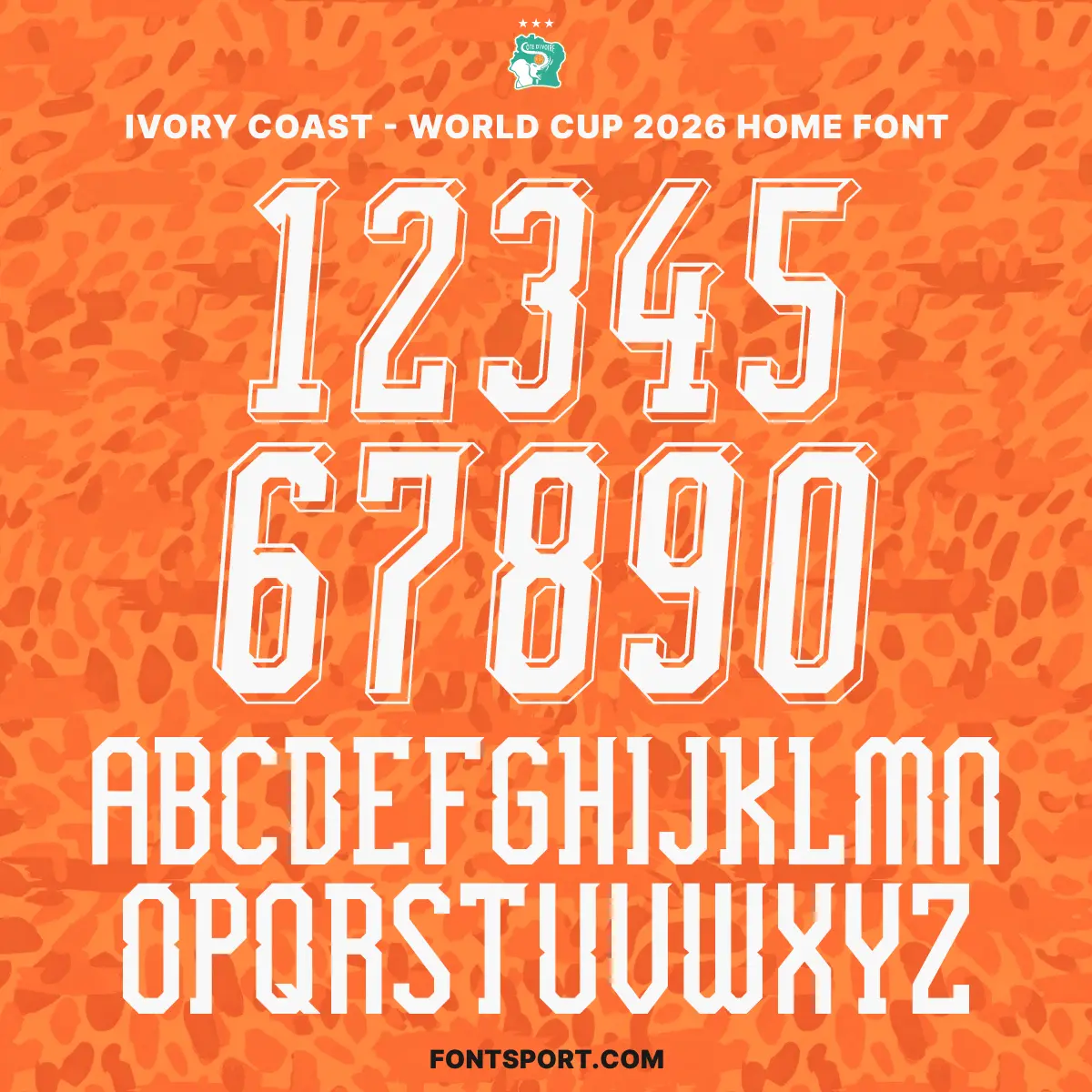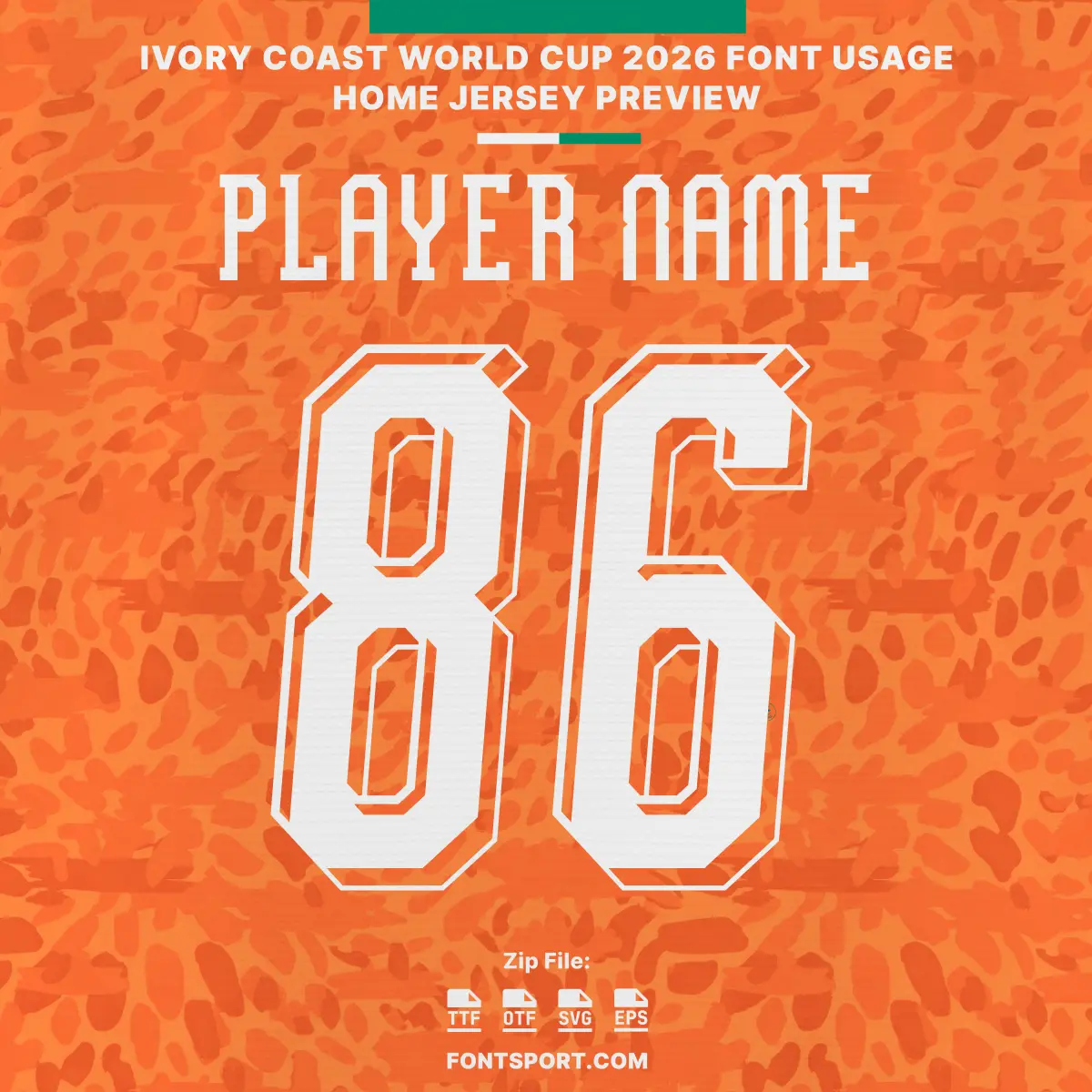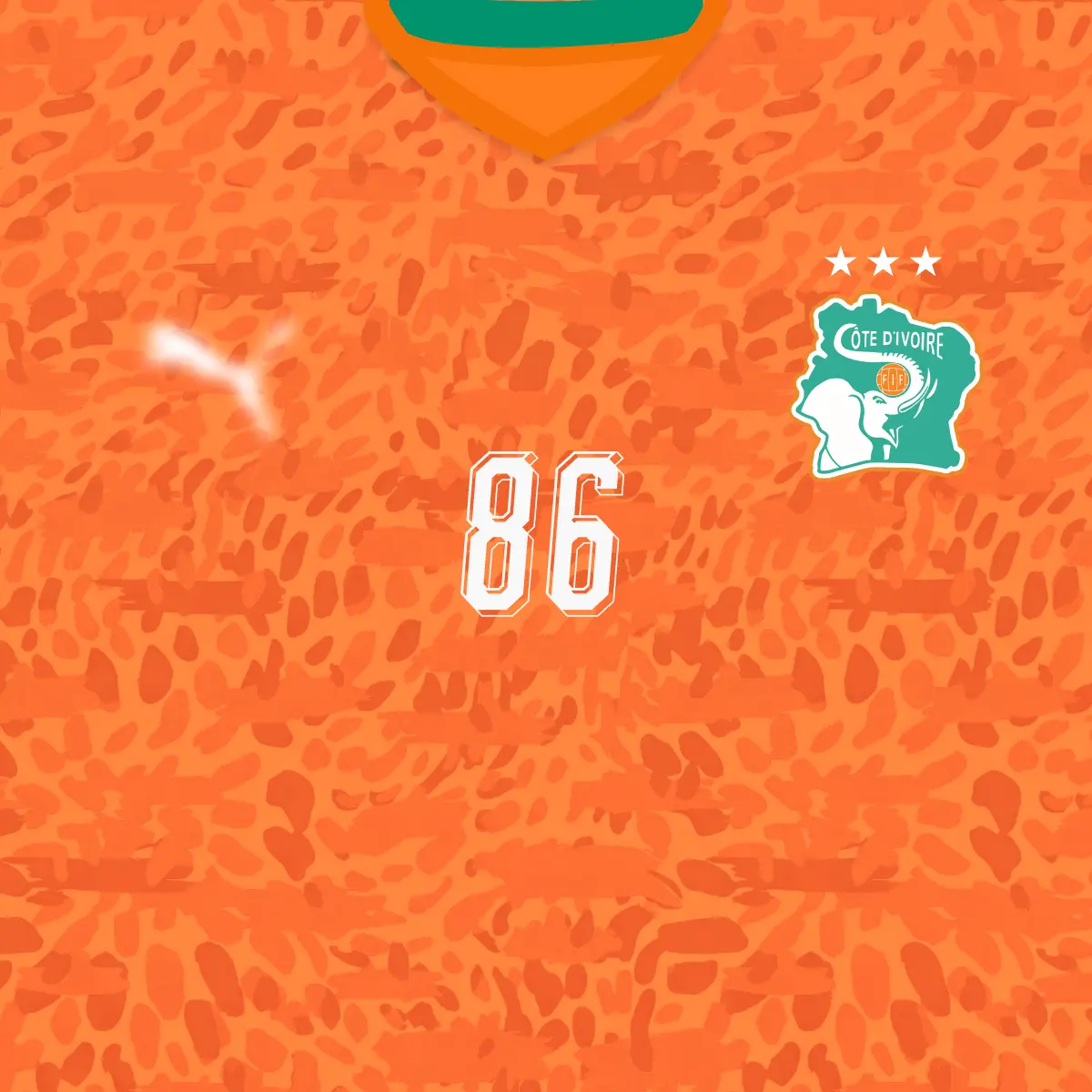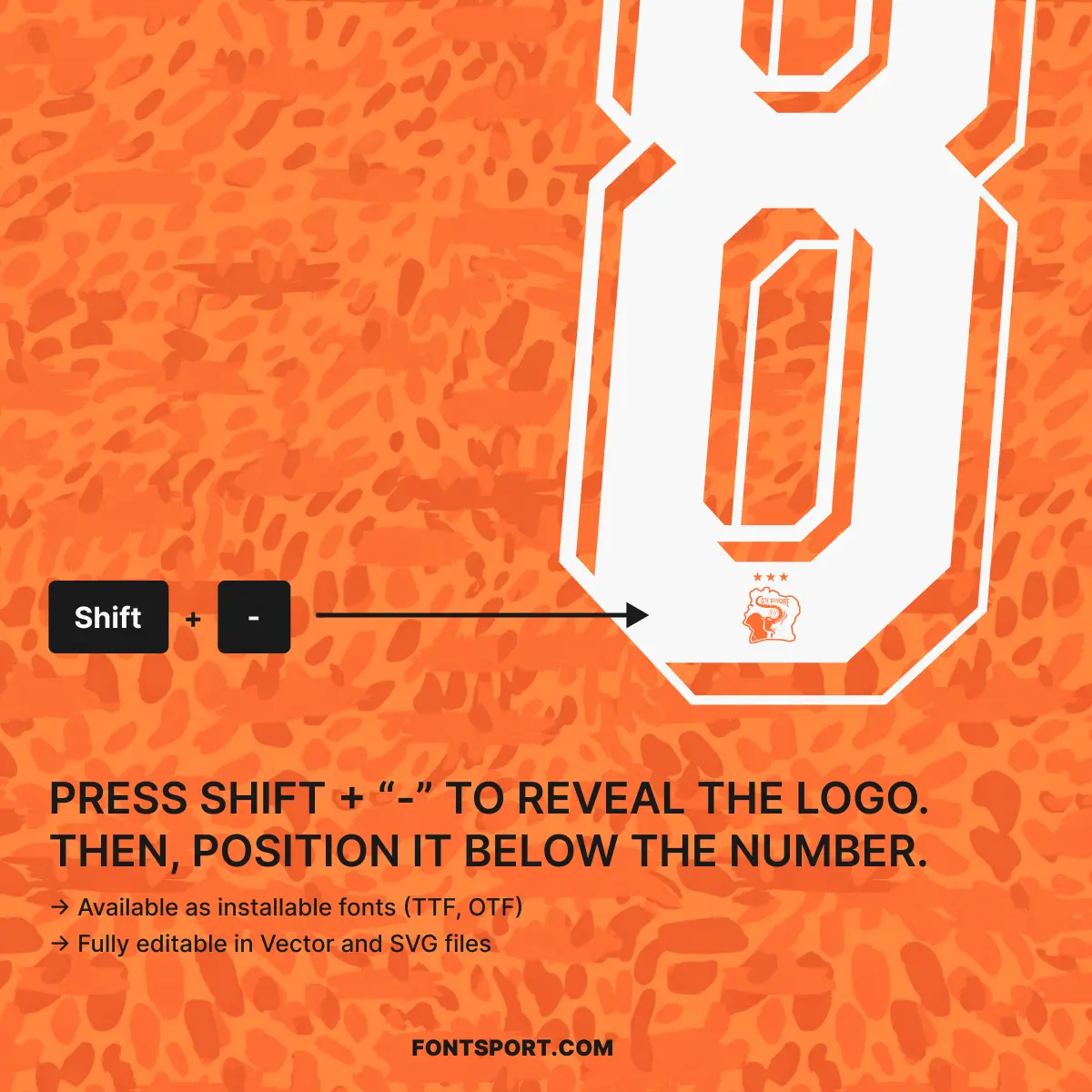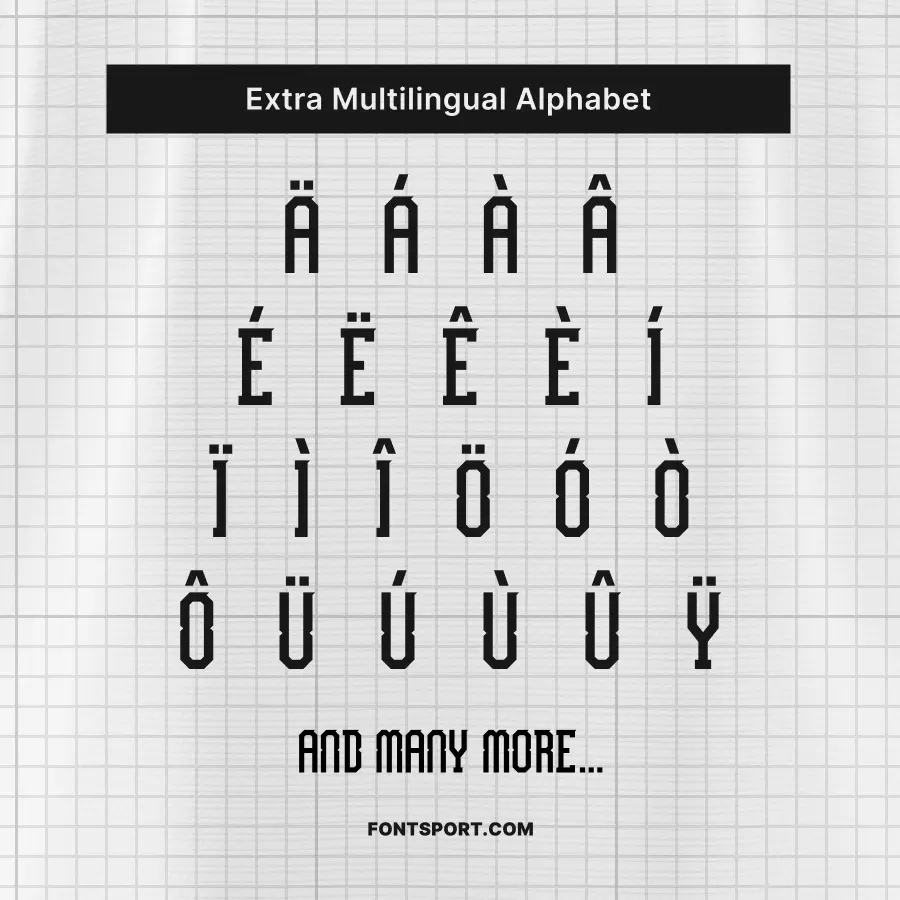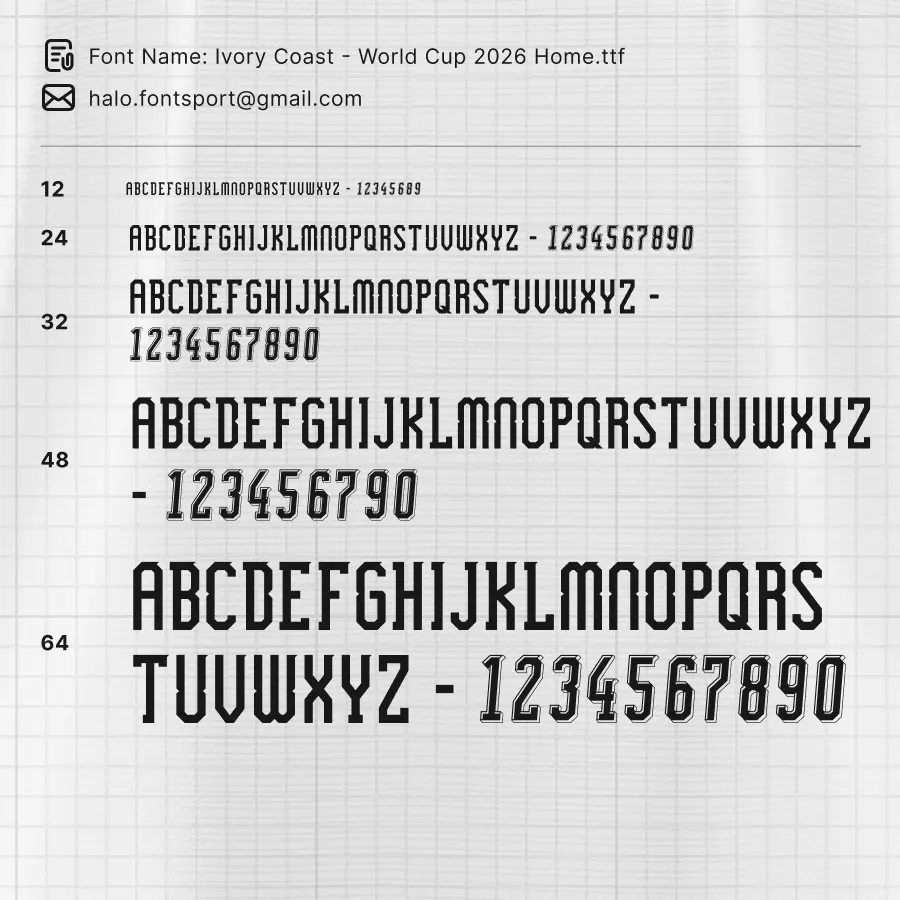
The Ivory Coast World Cup 2026 Home Font Kit brings the fiery energy and national pride of “Les Éléphants” directly to your design studio. This font captures the “Leopard-print” intensity and vibrant spirit that defined the 2024 AFCON champions as they prepare for their fourth global showcase in North America. Designed for elite athletic performance, this typeface is the centerpiece of the official 2026 collection by PUMA, reflecting a “vibrant and bold” aesthetic that truly pops.
Complete A–Z Character Set: Features the bold, modern uppercase letters that will be worn by stars like Franck Kessié and Simon Adingra.
Full 0–9 Number Set: Optimized for maximum visibility on the field, mirroring the numbers that will lead the Elephants through Group E.
Extra Multilingual Alphabet: Full support for accented characters (Ä, Á, È, Î, Ë, etc.), perfect for accurately rendering an international roster.
Integrated Team Identity: Add an authentic finish to your designs by revealing the official federation-style logo through a simple keyboard shortcut.
This bundle is ideal for creating personalized football kits, striking match-day graphics, or unique merchandise that celebrates the strength, resilience, and enduring spirit of Ivorian football.
This font kit is built for designers who want to capture the “Power and Confidence” of African football’s elite:
Authentic Tournament Style: Mirrors the typography revealed at PUMA’s landmark “Kit Block Party” in New York City.
Vivid Characterful Design: Part of a collection designed to tap into the cultural zeitgeist of the nation, using bold graphics and vibrant palettes.
Versatile Design Asset: An ideal font for jersey printing, sports branding, and team uniforms that require a “well-balanced and confident” look.